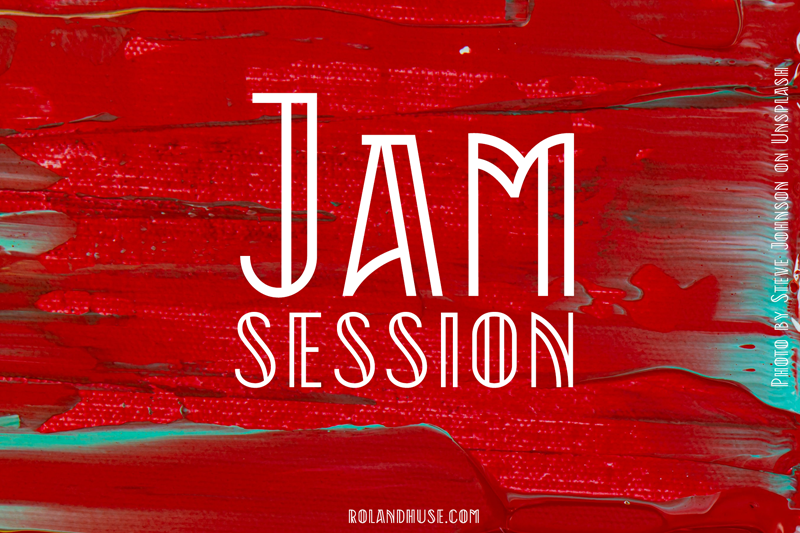
Preview and download Jam Session Font. Created by Runes & Fonts in Fancy Retro styles with Free for personal use license.
JAM SESSION is an Art Deco abstract sans serif All Caps display font. Please note that this is primarily for headlines, logos posters in large size. Please find full version and commercial license among many other cool fonts at https://www.creativefabrica.com/es/designer/roland-huse-design/ref/2092 Inquiries, feedback, customisation requests and/or extra characters please contact@rolandhuse.com * * * Background image (taken from Unsplash) credit: https://unsplash.com/@steve_j * * * You may not sell these fonts or claim them as your own. edit or rename these fonts. redistribute these fonts. Find more of my works on instagram @rolandhusedesign Subscribe and learn Working With Glyphs at workingwithglyphs.com Thank you and hope you like this font! Have a great day and good luck with your work, Roland |